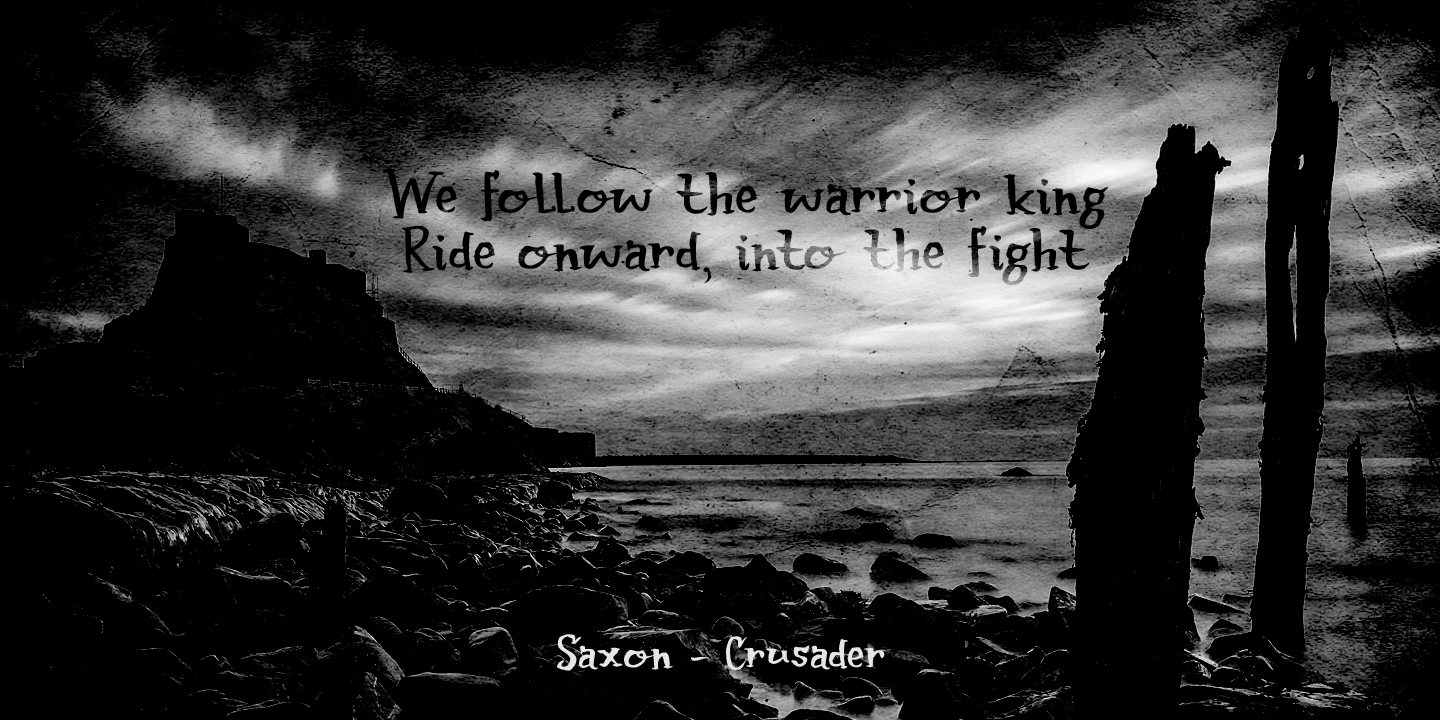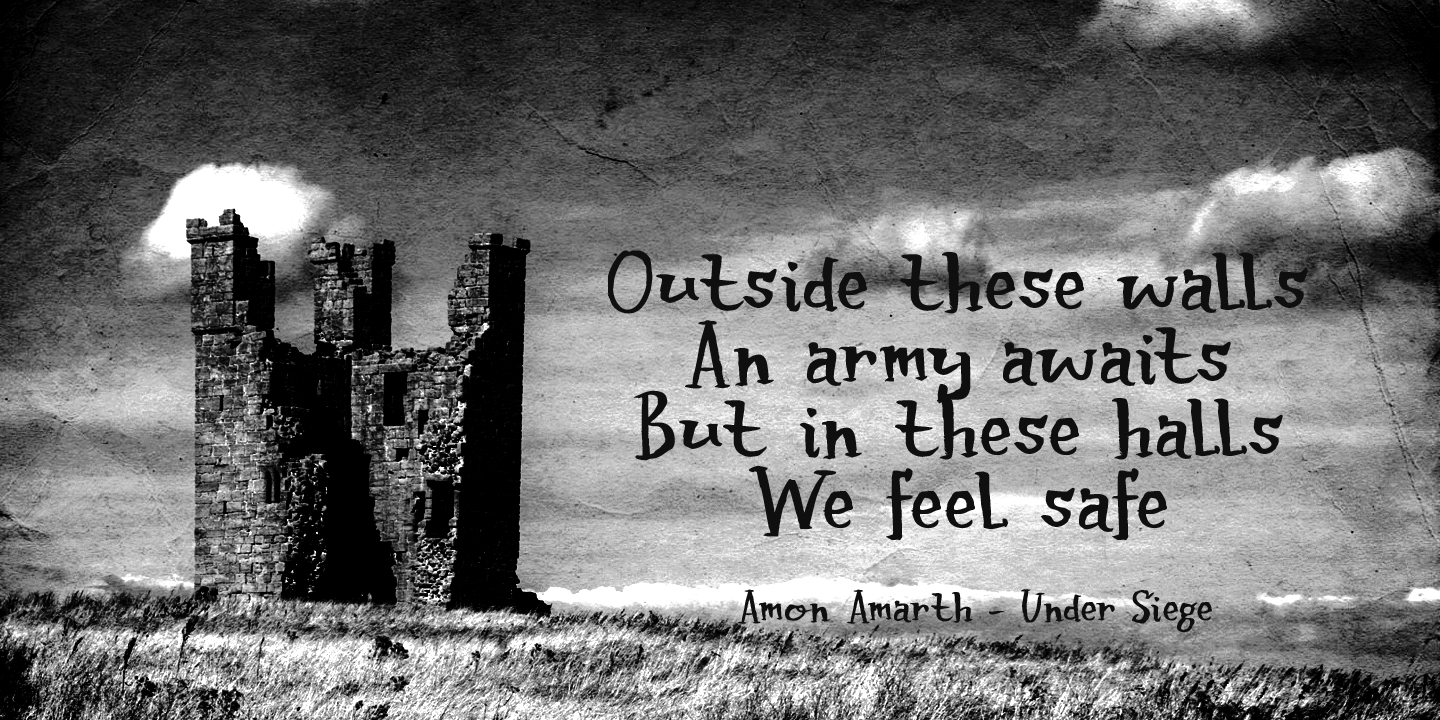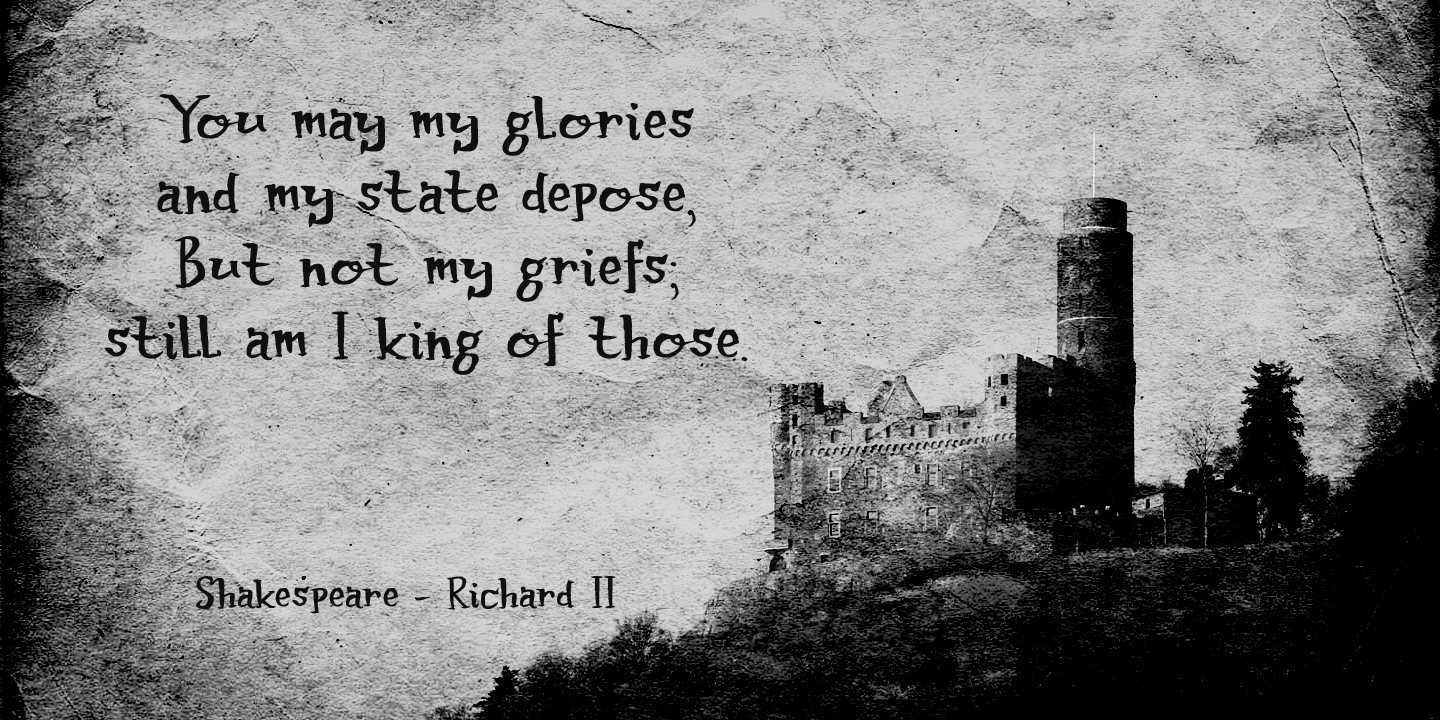
About Castle On The Hill
When I started working on this font, I had the radio on. Ed Sheeran was singing his song ?Castle On The Hill? and when I looked at this new font of mine, I couldn\’t help but notice it had a bit of a medieval look. So I named it Castle On The Hill. COTH…